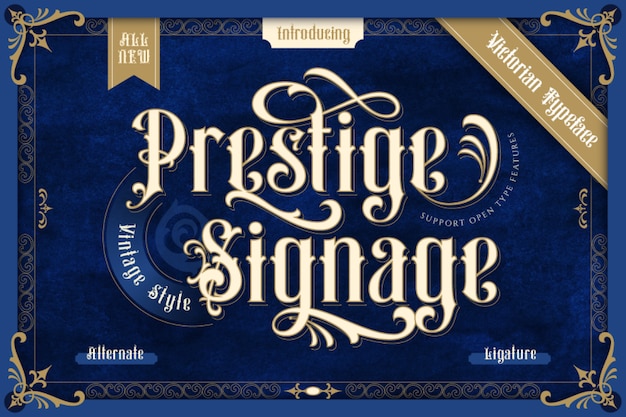
Prestige Signage Font
Prestige Signage is a vintage-inspired font that captures the charm of historical signage. Its antique style evokes the elegance of old-world lettering, reminiscent of storybook titles and timeless storefronts. Perfect for adding a nostalgic, classic touch to designs, it blends the past's sophistication with modern readability.